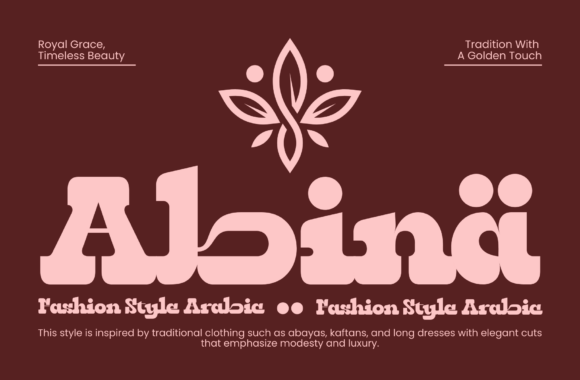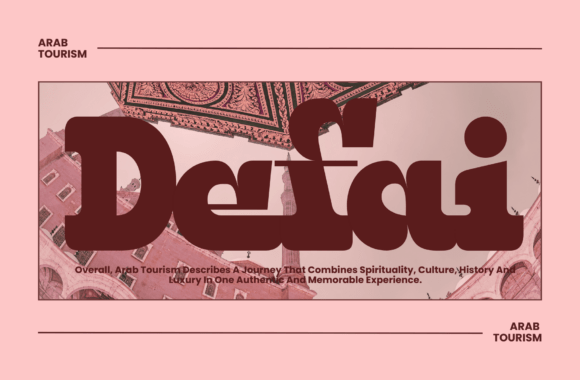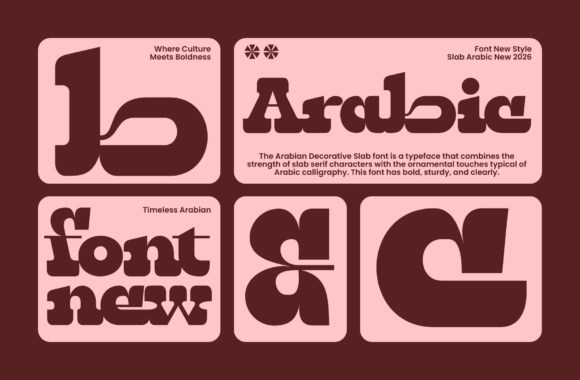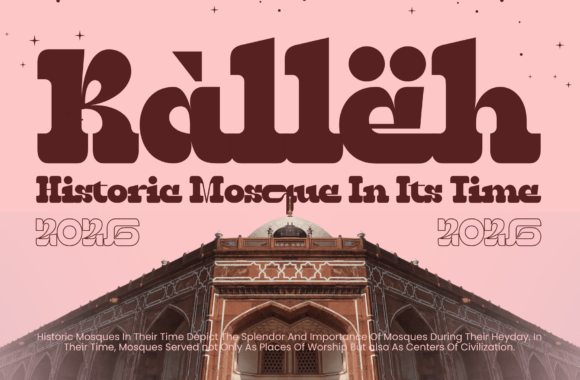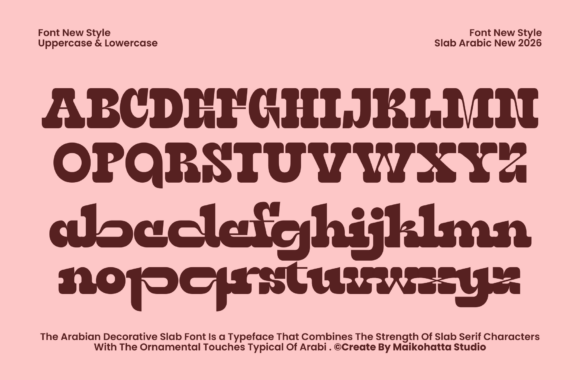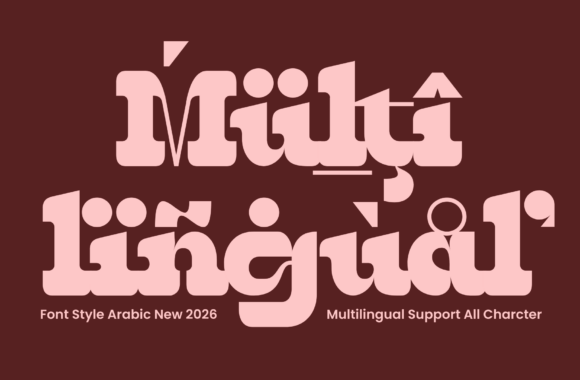
Introduction to Qebica Font
Qebica is a bold and distinctive Arabic display slab serif typeface that blends the strength of classic slab serif structures with ornamental elements inspired by Arabic calligraphy.
Perfect for logos, branding, packaging, posters, headlines, editorial layouts, social media graphics, and display purposes, Qebica brings an elegant Middle Eastern aesthetic with a contemporary slab serif twist .